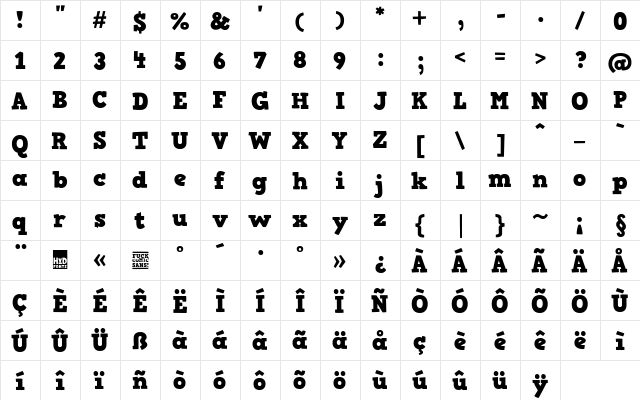
HVD Comic Serif Bold
| Foundry | Hannes von Dڨren |
| Designer | Hannes von Dڨren |
Design Context for HVD Comic Serif Typeface
HVD Comic Serif trades formality for fun, with bouncy, characterful letterforms that bring warmth and energy to any project.
Great for children's books, toy packaging, family event branding, and casual consumer-facing design.
Font Pairing: Pairs well with a rounded or humanist sans for body copy, maintaining the friendly tone without relying on HVD Comic Serif to carry extended reading.
Pro Tip: Avoid using HVD Comic Serif for long passages of text — it works best for headlines, labels, and short calls to action.